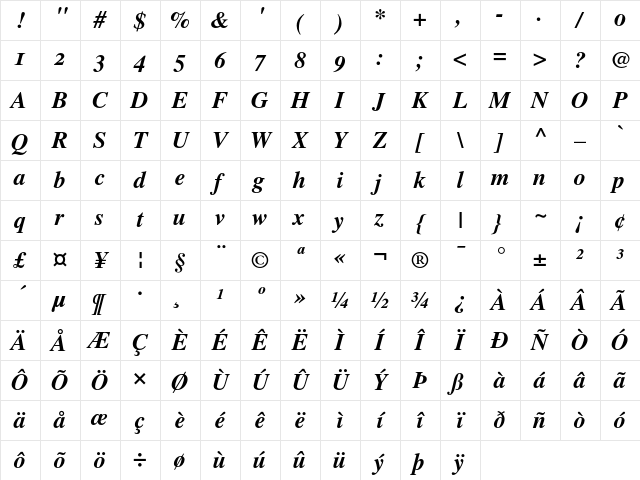
Times Bold Italic Old Style Figures Free Font
Times Bold Italic Old Style Figures
Style: Bold Italic Old Style Figures
Design Context for Times
Times is a composed and adaptable typeface that performs quietly and consistently across a wide range of design contexts. The slanted form adds forward momentum and visual energy. Its bold stroke weight gives it real presence on the page.
Pro Tip: Use Times for emphasis, pull quotes, and subheadings where its slanted energy can add rhythm to the layout.